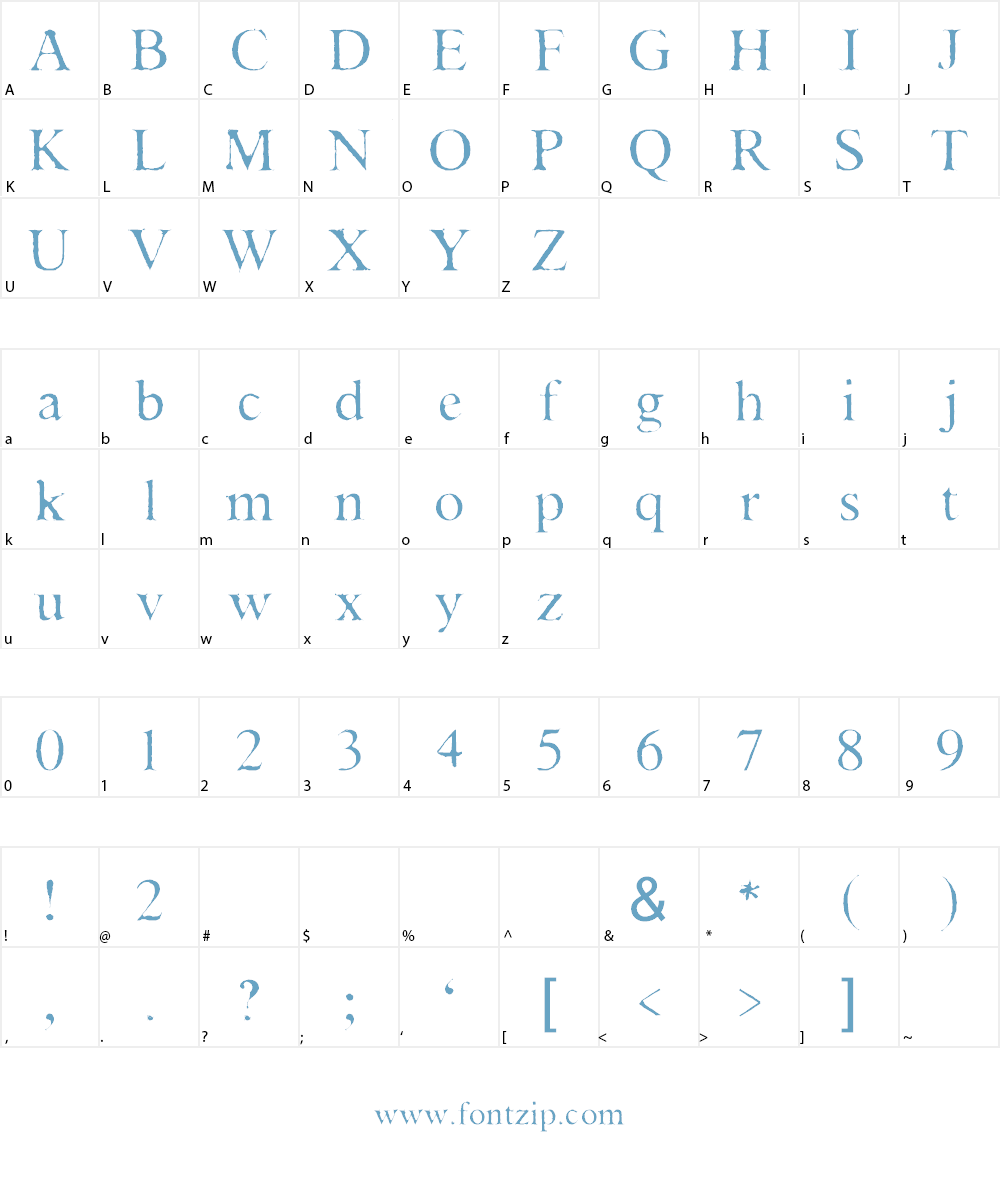
the ASHA Font Family: Brimful of Asha...
Not even *that* keen on Cornershop, but this font is named after that song. Yeah, it did used to be Times New Roman. I feel like such a cheat and a fraud for playing with existing fonts, but there you go.